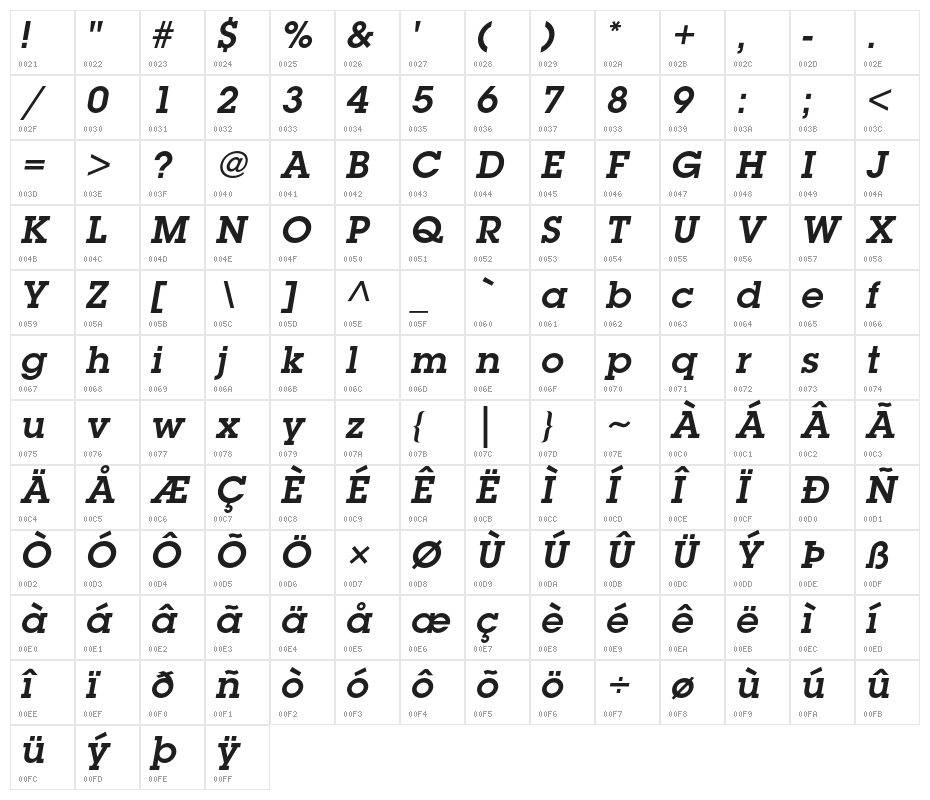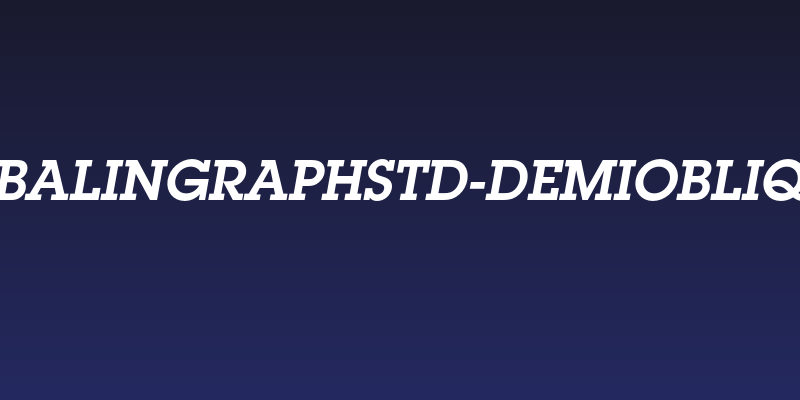
LubalinGraphStd-DemiOblique Font
LubalinGraphStd-DemiOblique Description
This font exhibits a bold and dynamic presence with its oblique style, giving a sense of movement and modernity. The characters are well-defined with a consistent stroke weight, offering a clean and professional appearance. The uppercase letters are strong and commanding, while the lowercase letters maintain readability with a slight slant that adds to the overall aesthetic. The numerals are clear and distinct, ensuring legibility in various contexts. Special characters are included, providing versatility for different design needs. The font's design is suitable for making a statement, whether in headlines or branding materials.
| Proposed Projects | Ideal for branding, advertising, headlines, and modern design projects. |